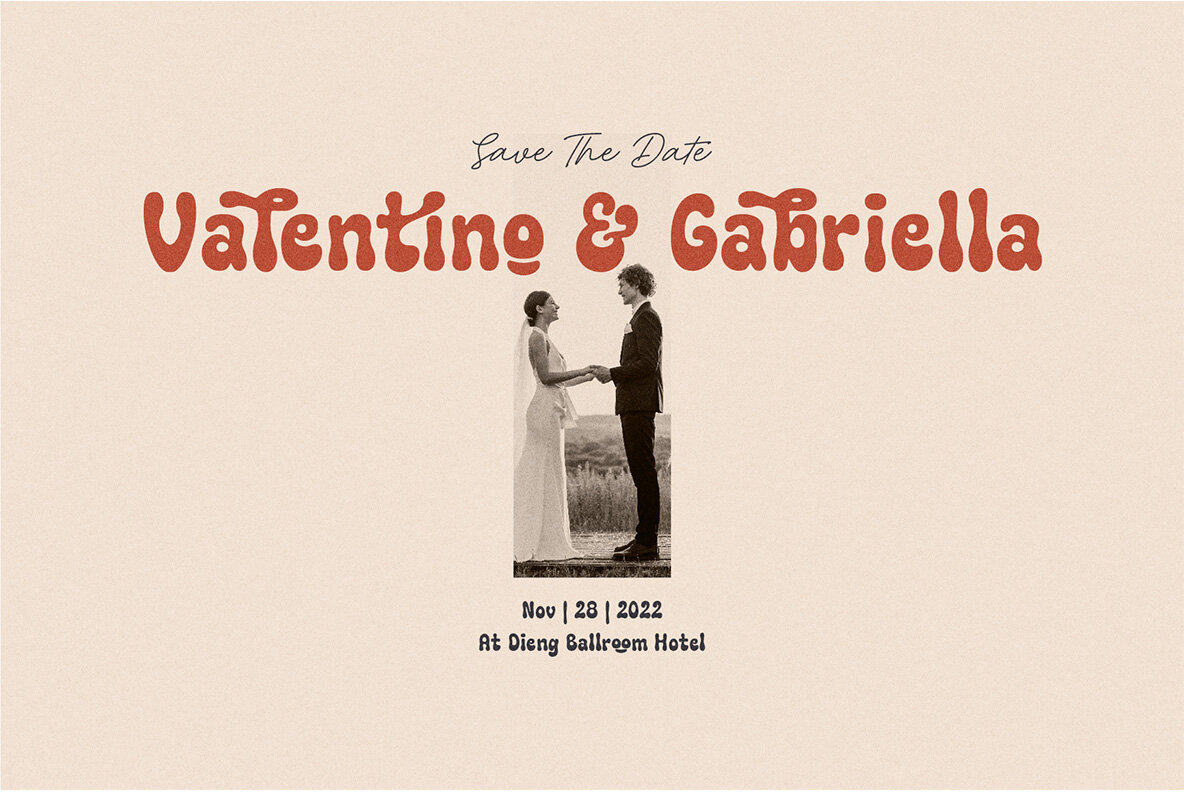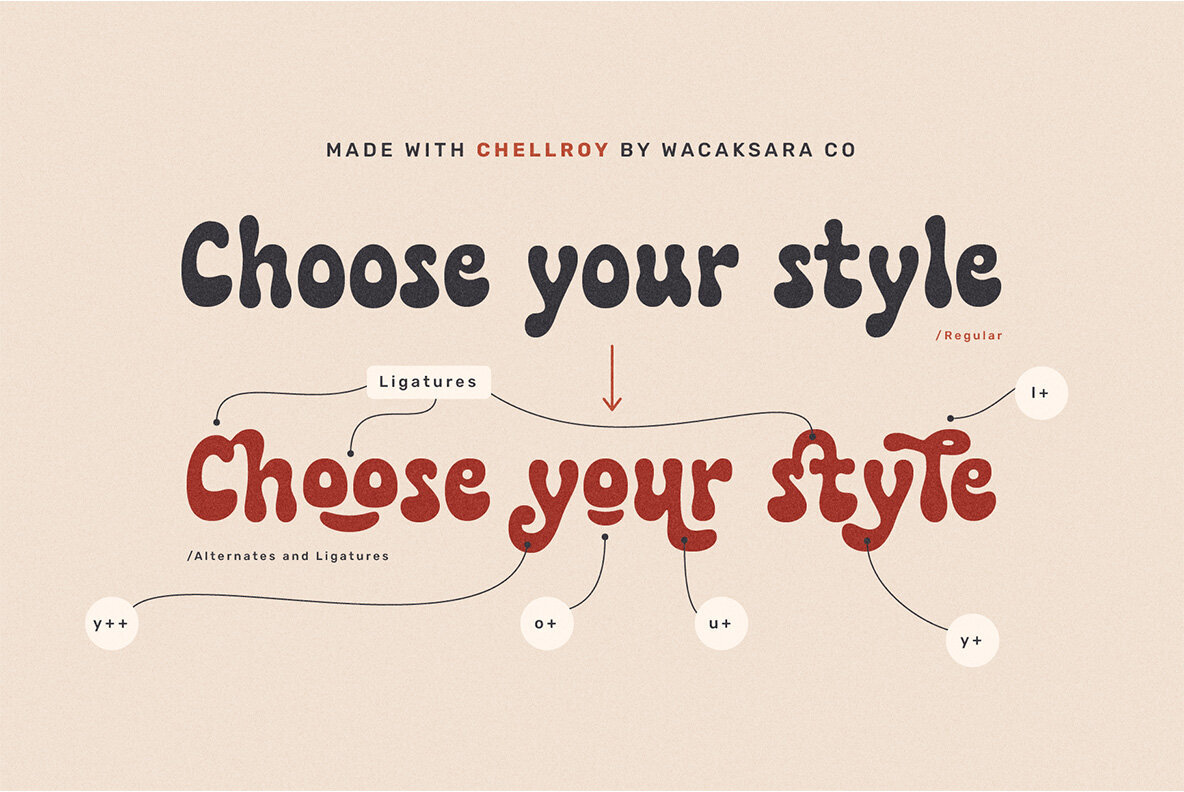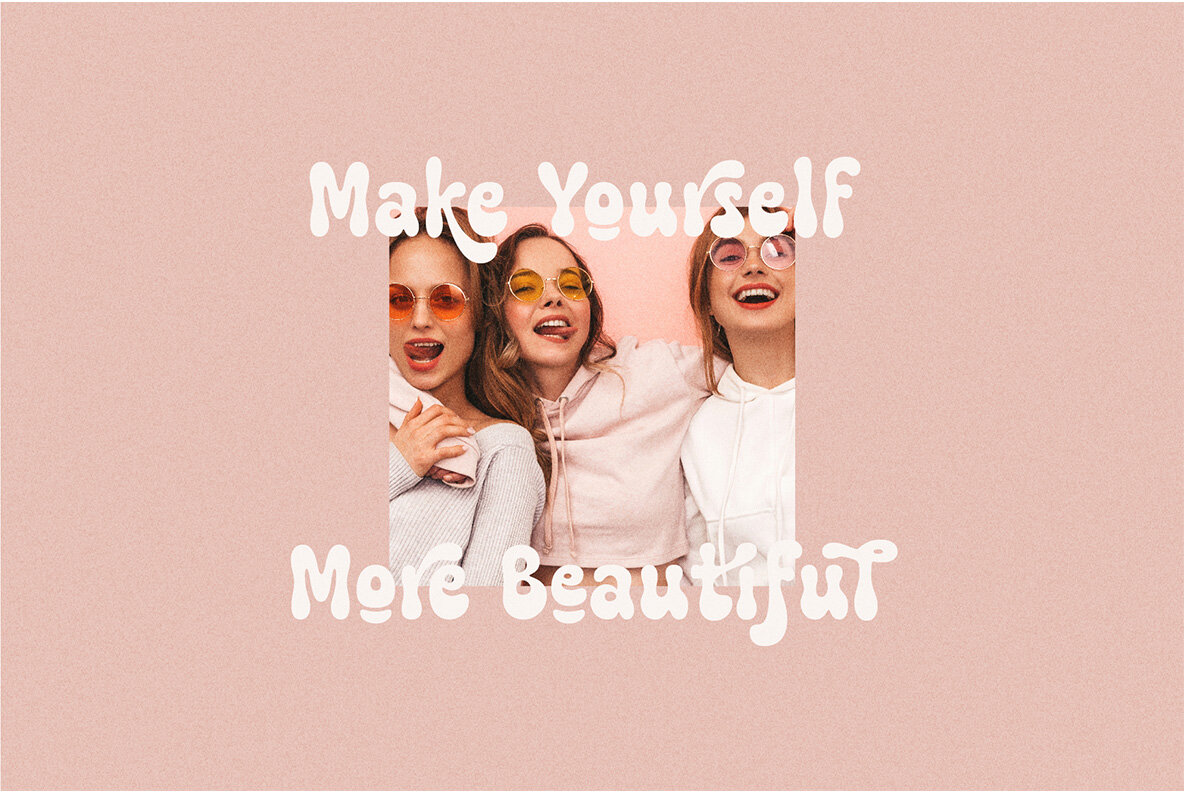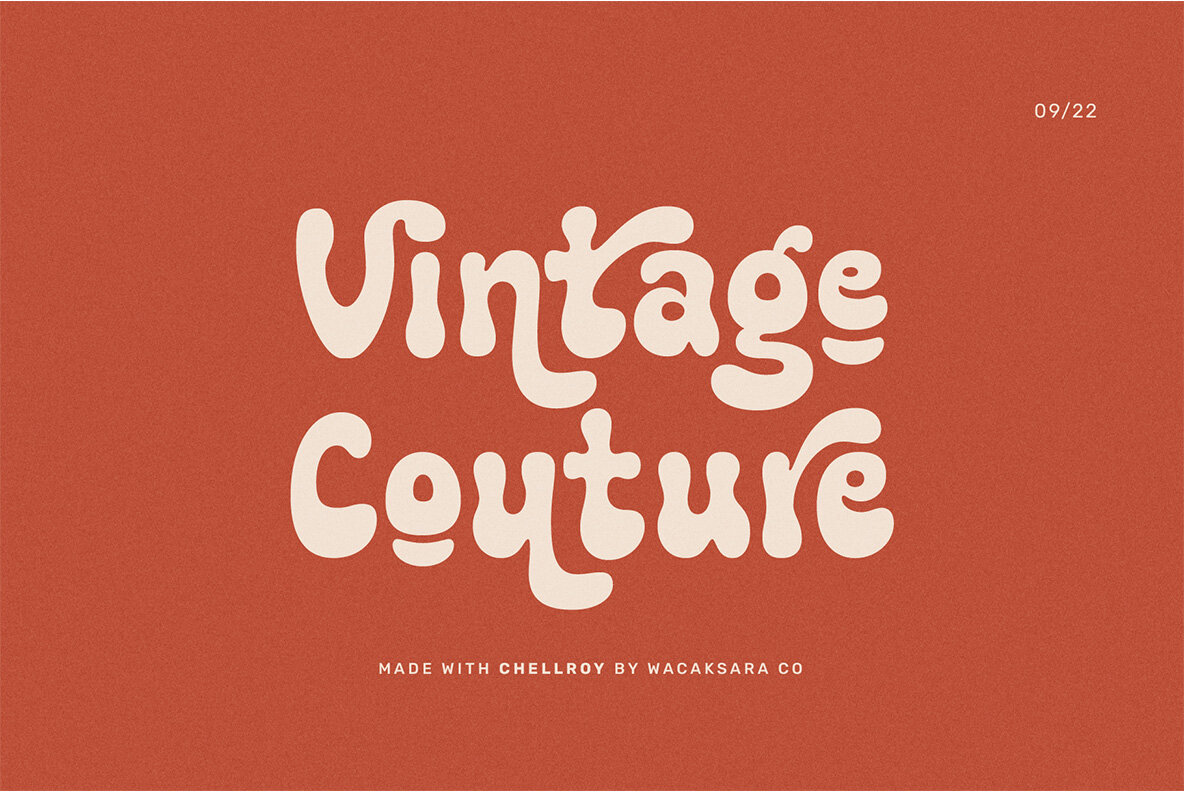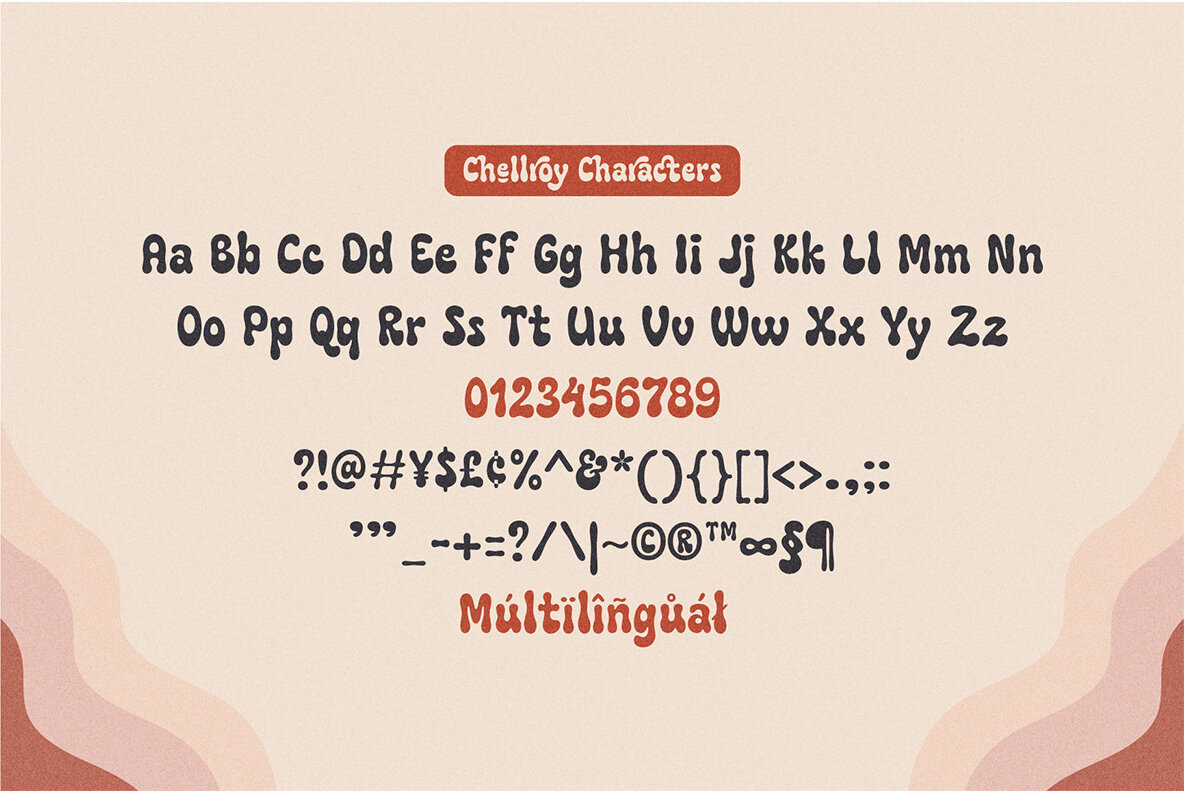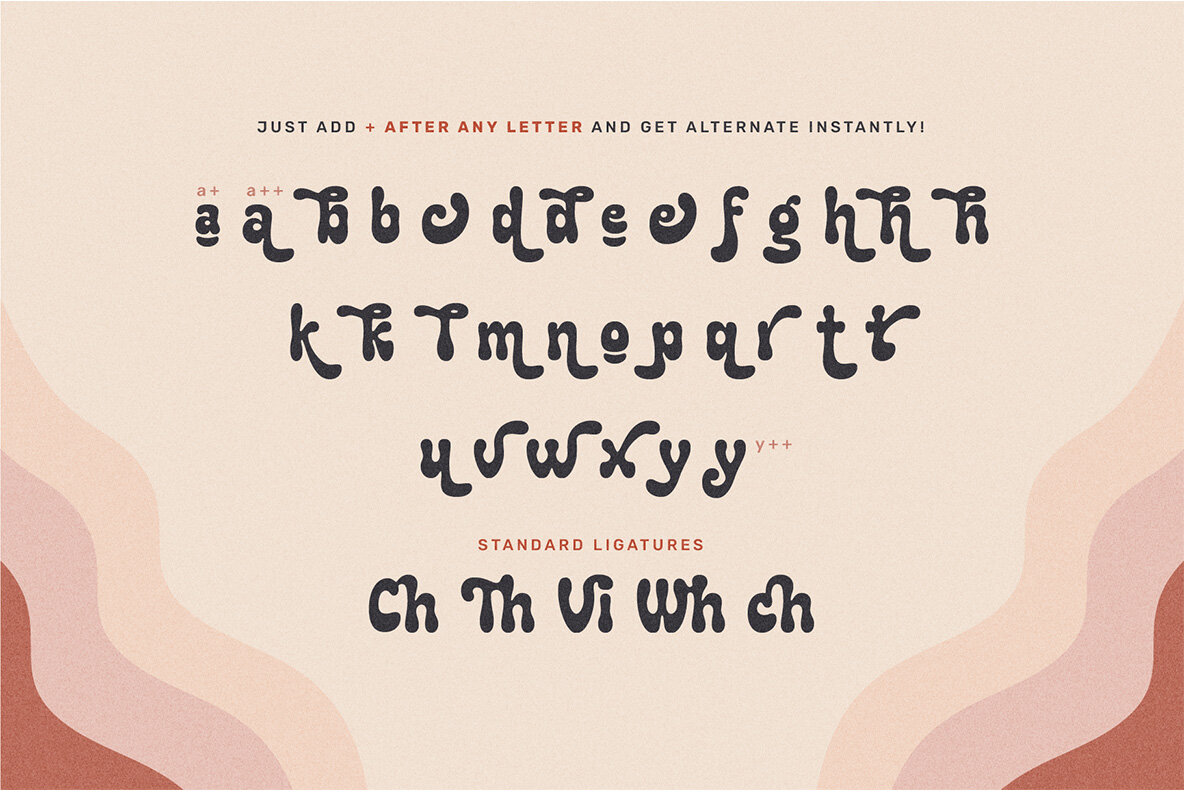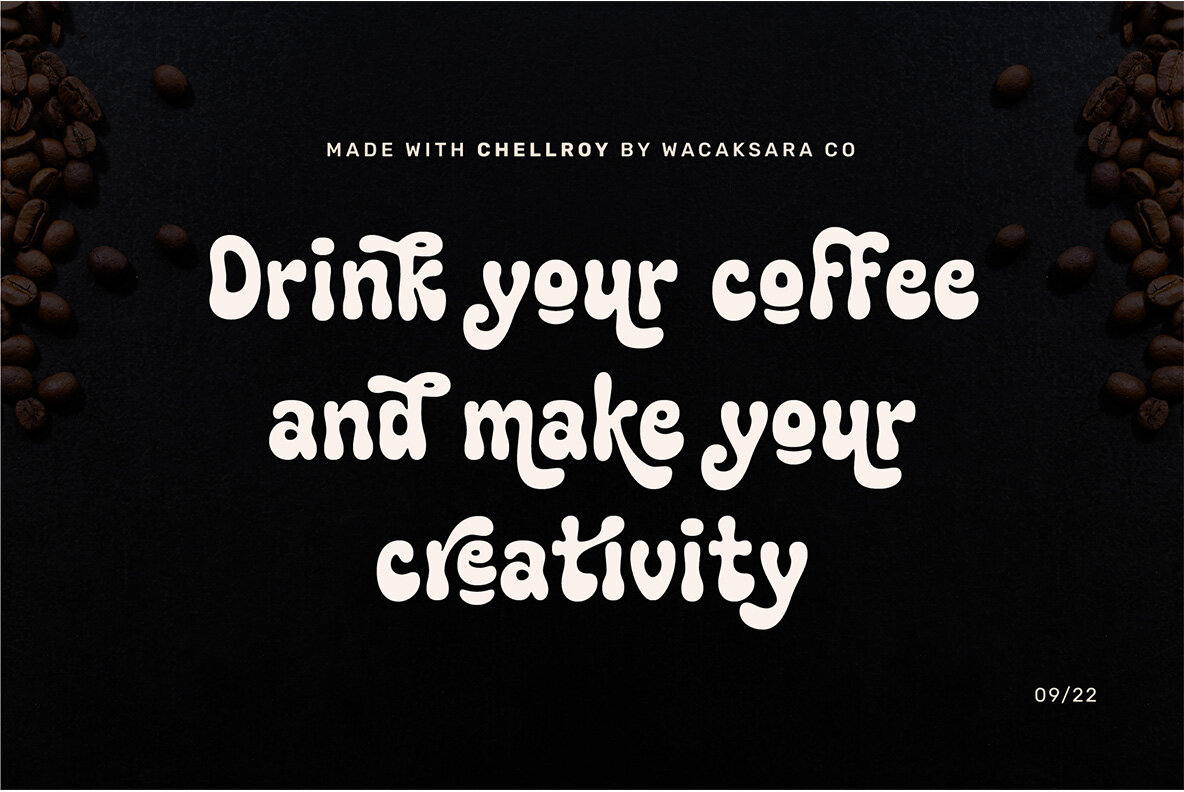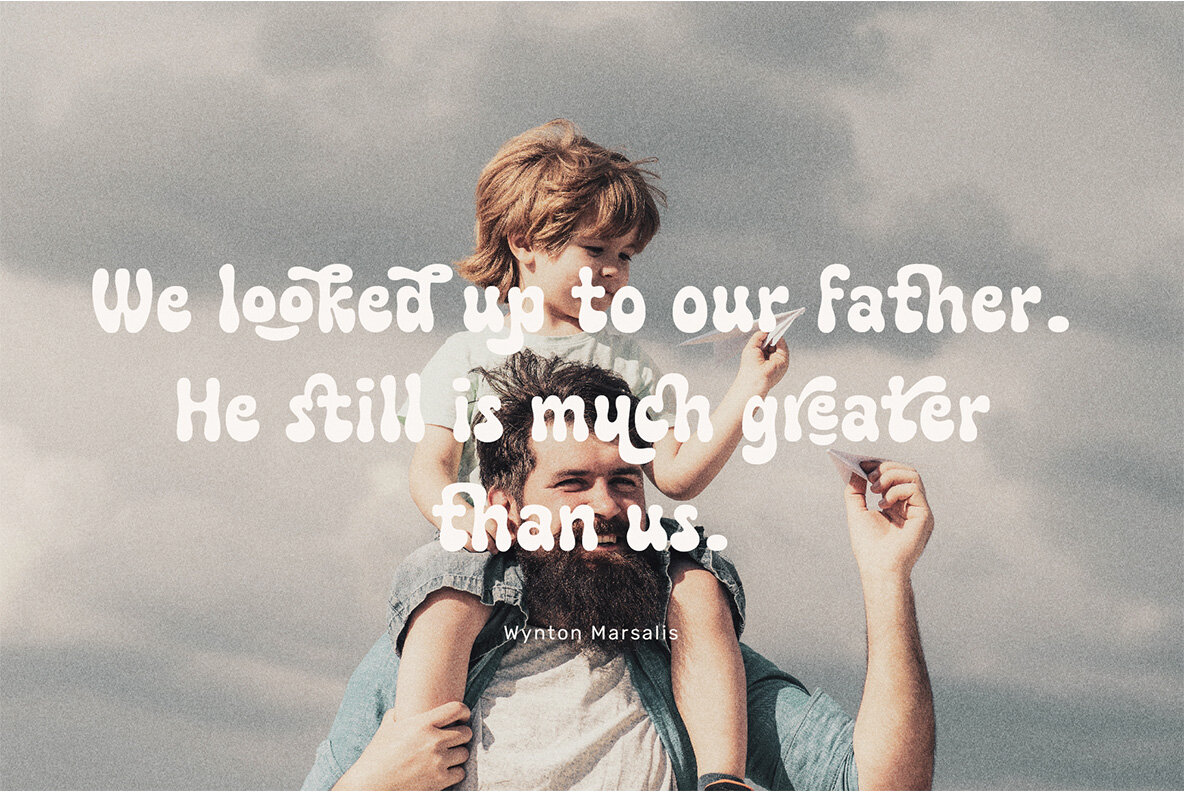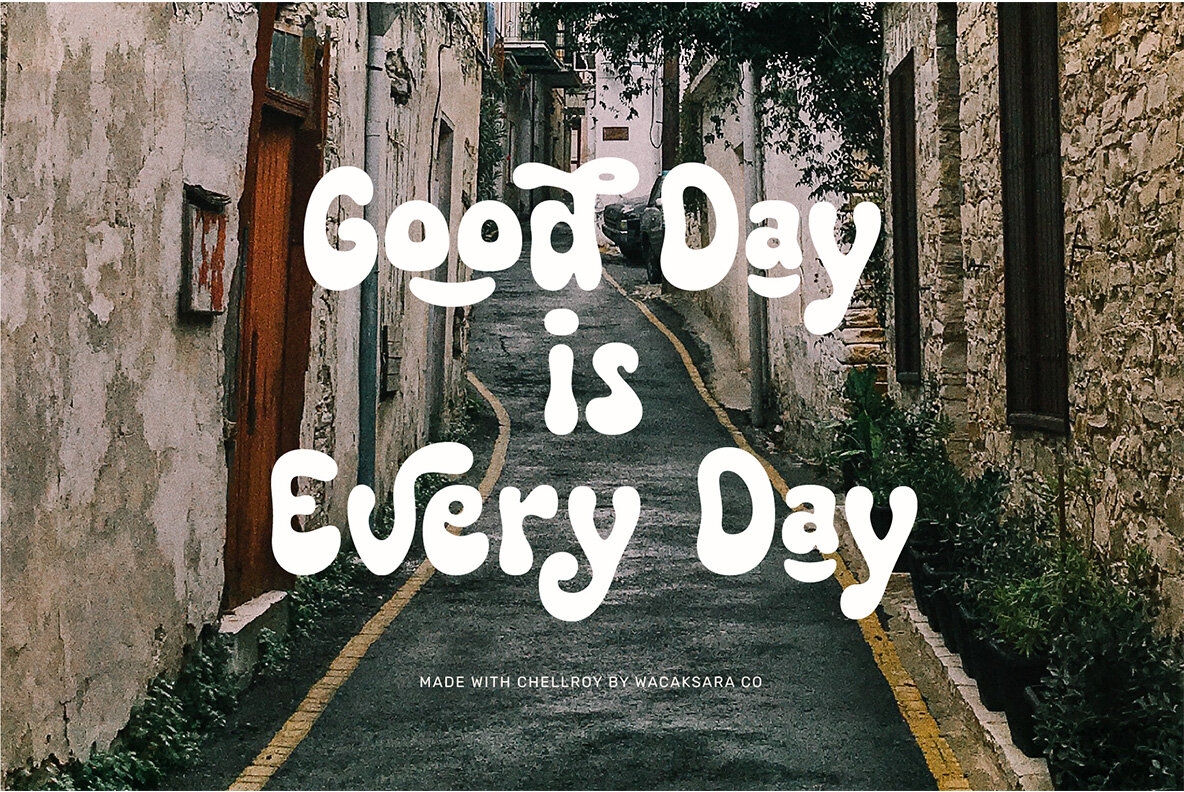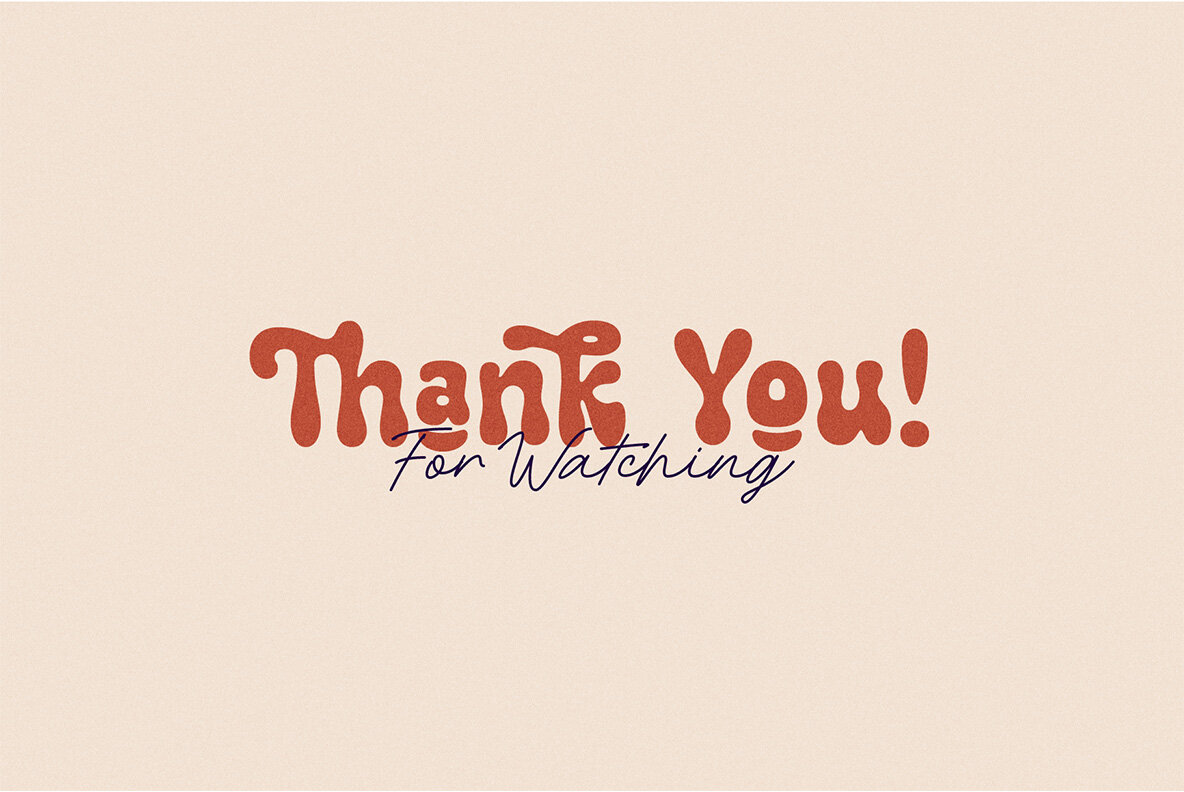
Chellroy Font
Chellroy
Chellroy brings a contemporary edge to retro aesthetics with its hand-drawn charm, making it an ideal choice for various creative projects. Whether you're designing quotes, crafting Cricut projects, or setting bold header text, Chellroy injects a fresh, modern style into retro classics. Perfectly suited for logos, branding, advertisements, posters, magazines, and even social media graphics on platforms like YouTube and Instagram, this font offers versatility across digital and print media. Chellroy is endowed with numerous alternatives and ligatures that invigorate your designs. To utilize alternative characters and ligatures, ensure the 'Standard Ligature' and 'Discretionary Ligature' features are active. Simply follow any letter with a plus symbol to explore multiple stylistic options, such as typing 'a+' to access different variations of the lowercase 'a'.Chellroy: Modern Retro Font with Hand-Drawn Flair